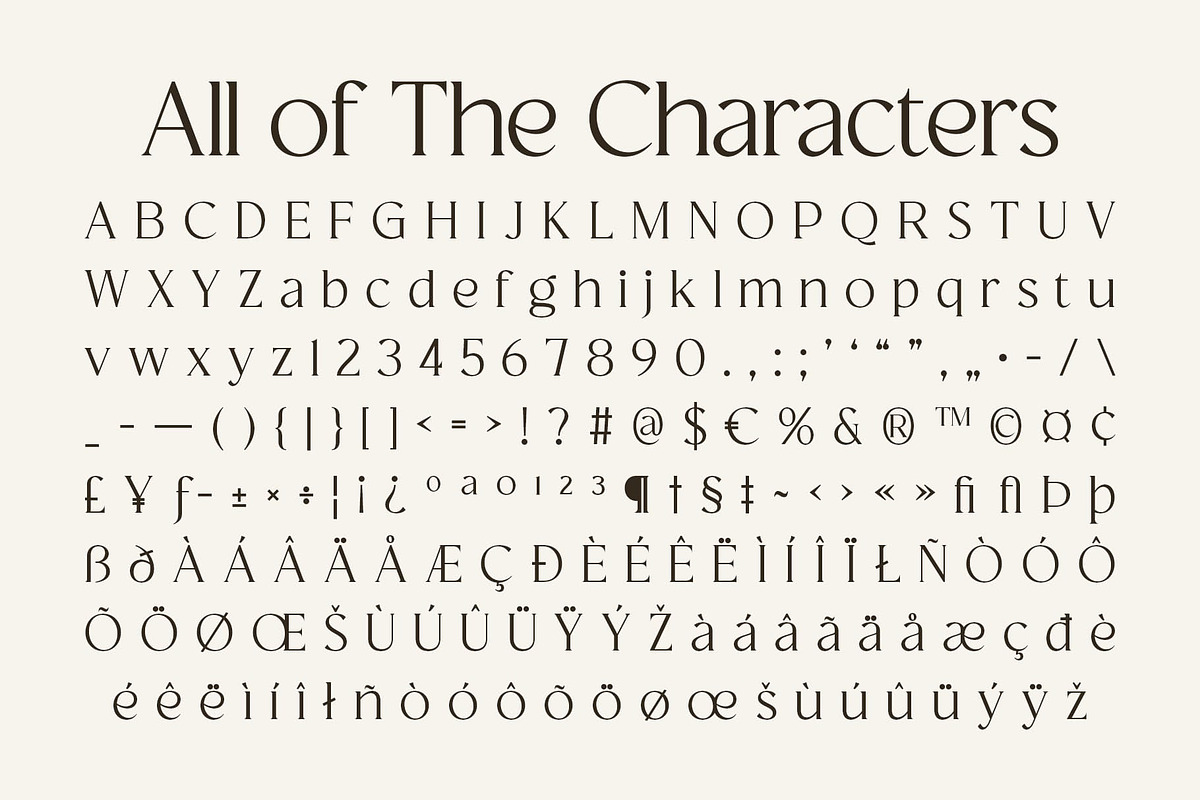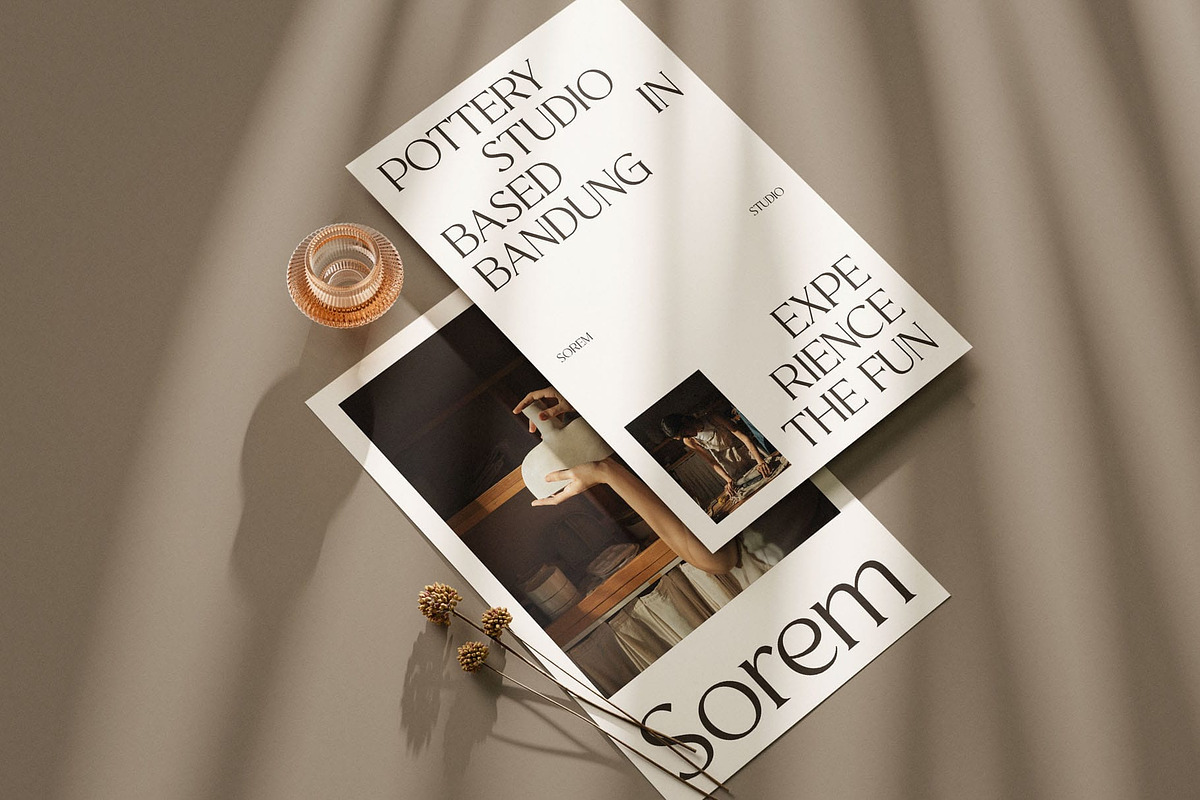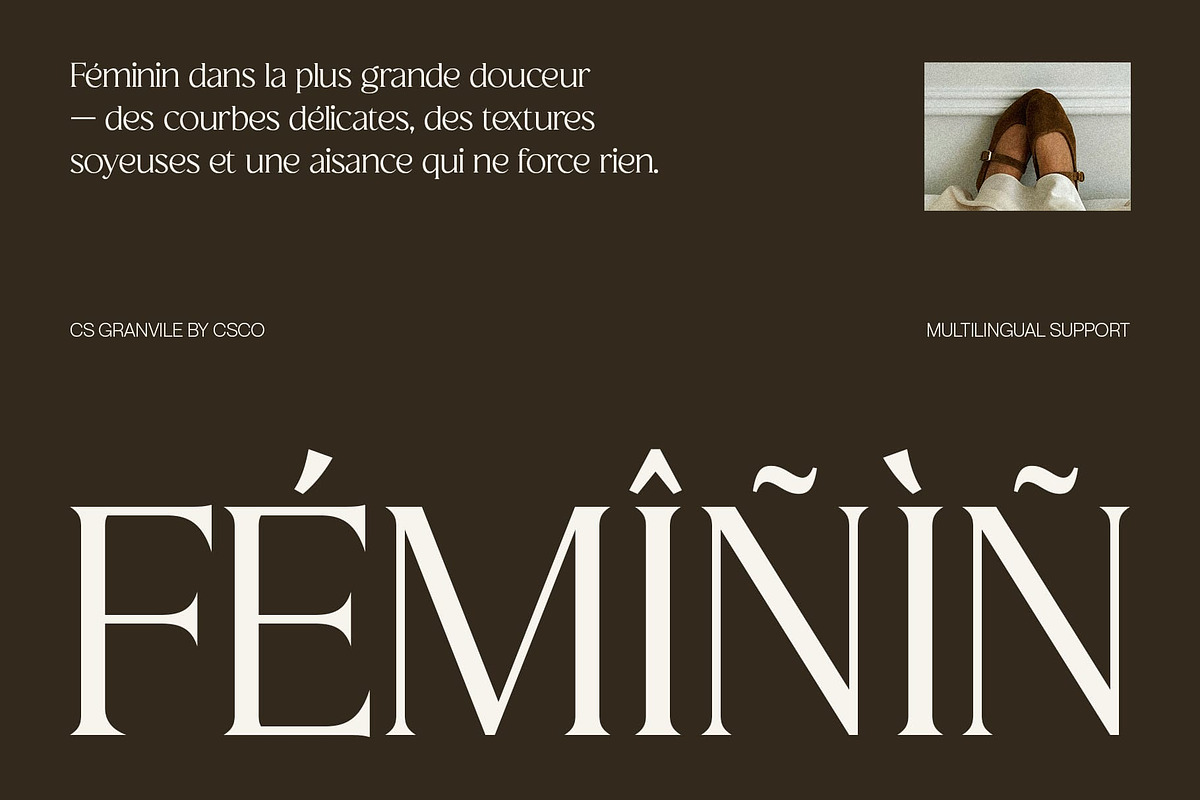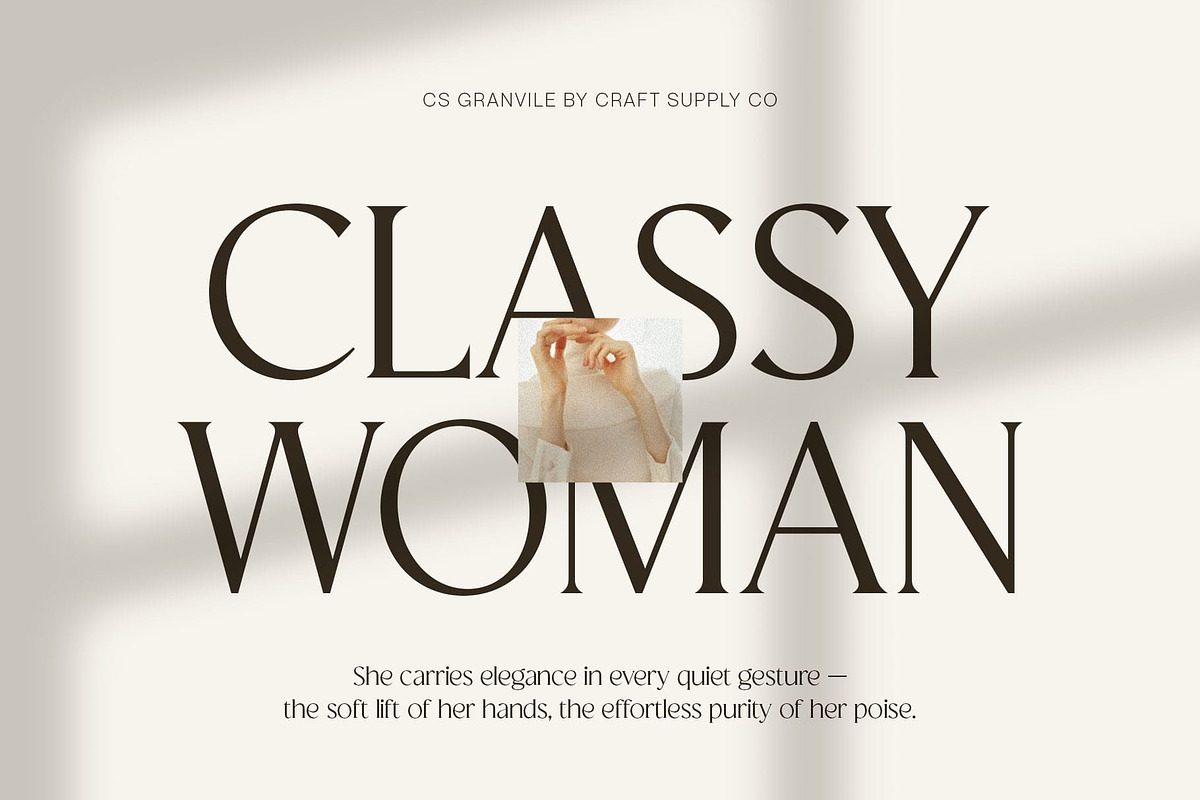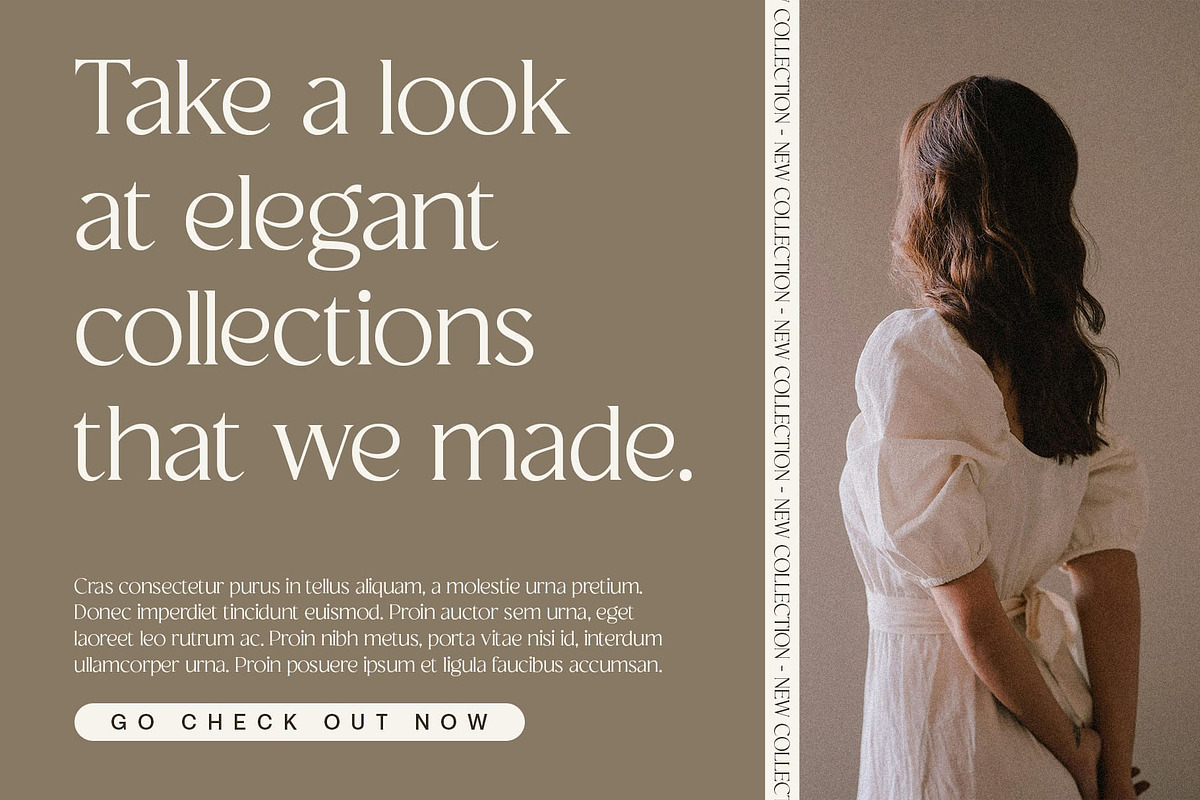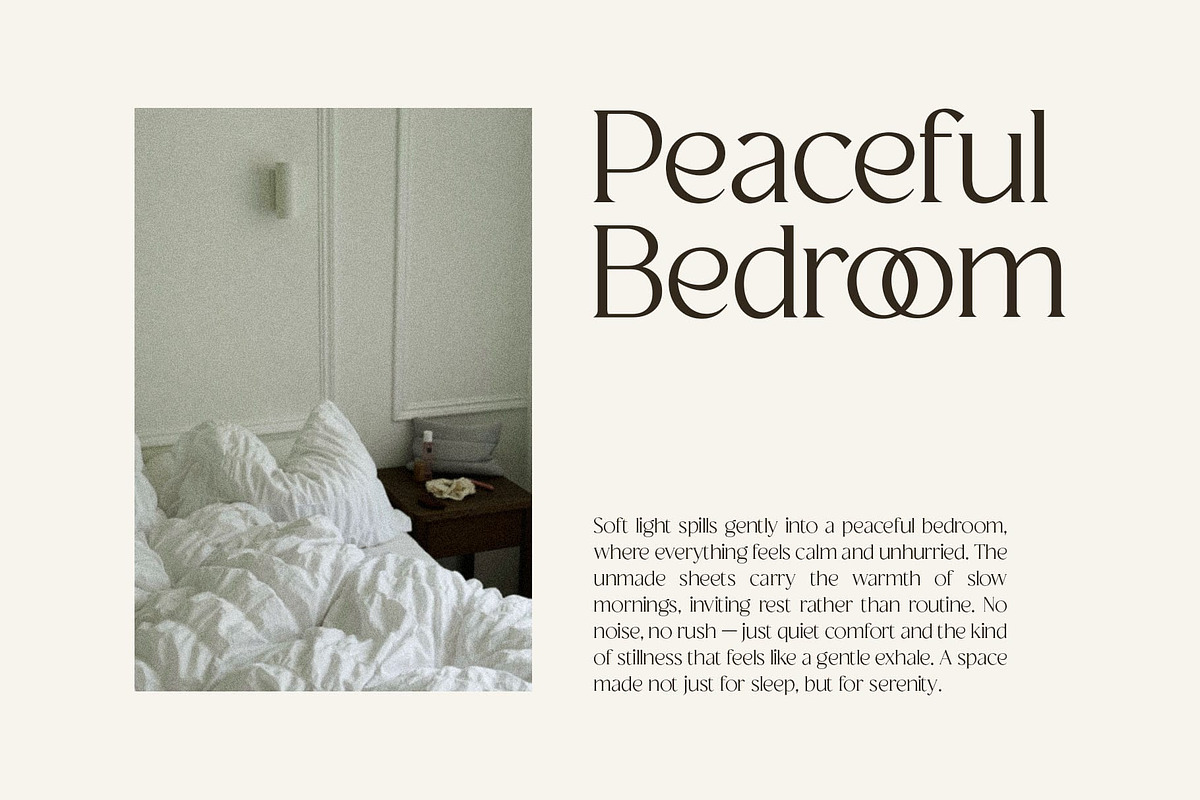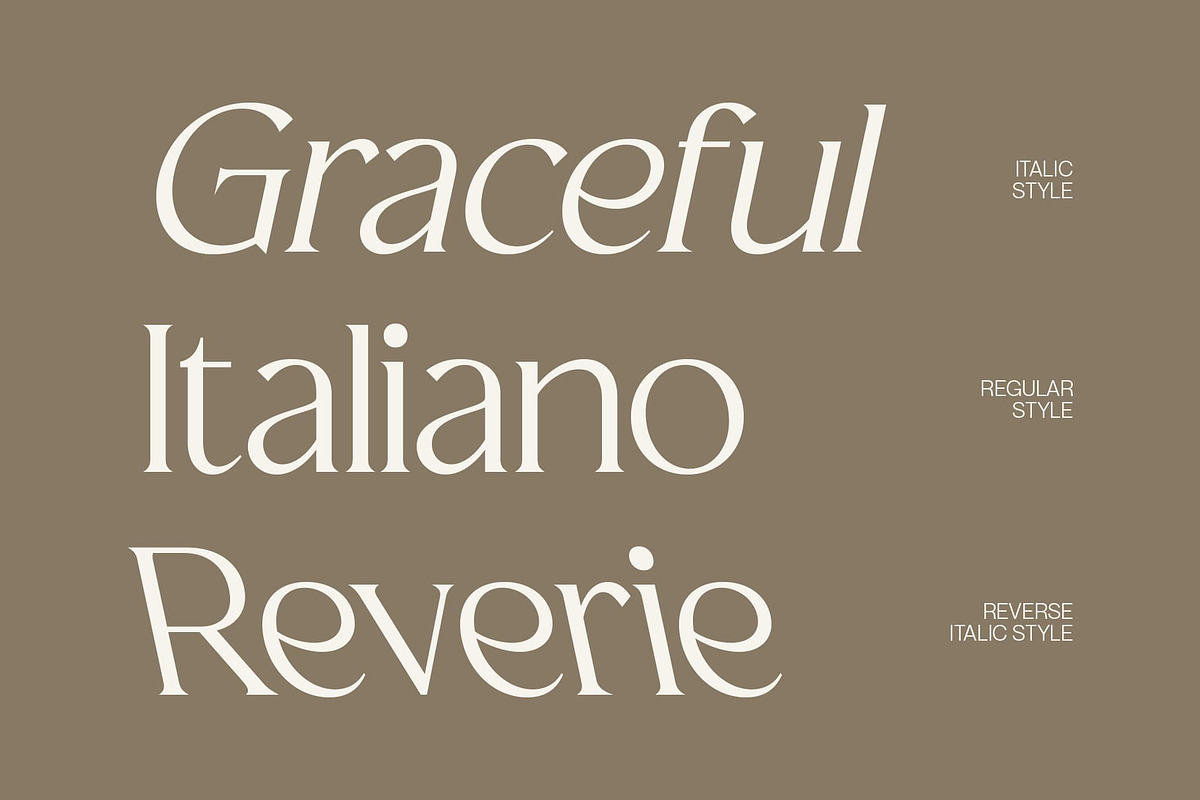
CS Granvile – Elegant Serif Font
CS Granvile – Classic Elegance with Refined Sophistication
Timeless Serif with a Luxurious Character This is an elegant serif font defined by refined curves and a timeless classic look. Each letterform is crafted with precision and grace, exuding sophistication and confidence. Designed to elevate visual storytelling, this font embodies the perfect harmony between traditional elegance and modern refinement.
Elegant Curves for a Distinguished Presence The smooth, balanced curves of this font create a luxurious aesthetic that feels both delicate and strong. Its refined proportions bring a sense of high-end design to any layout, allowing text to flow effortlessly while maintaining a commanding presence. This makes it perfect for projects that demand beauty, balance, and professionalism.
Ideal for Luxury and Editorial Design From luxury branding to editorial layouts, this font delivers an air of exclusivity and grace. Its poised structure and refined contrast make it suitable for fashion magazines, packaging, and high-end branding where detail and style define the message.
A Serif That Defines Sophistication This font stands as a statement of timeless taste. Combining classical influence with modern execution, it enhances any creative project with understated glamour. Whether used for logos, titles, or sophisticated print work, this font reflects craftsmanship, refinement, and lasting elegance.
- CS Granvile Regular
- CS Granvile Italic
- CS Granvile Reverse Italic